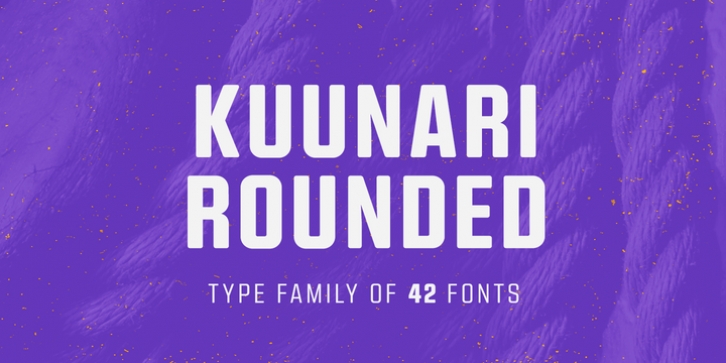
Kuunari Rounded is (You quessed it!) the rounded version of Kuunari. Kuunari Rounded is structured square sans type family of 42 fonts. It has three widths and 7 weights in both upright and italic versions. The base form is a round cornered rectangle and this form constructs the glyphs throughout the fonts.
Kuunari Rounded is a straightforward sans serif. It doesn't make any fuzz about itself, it just does the job proudly and with confidence. It is very versatile; it can be used for titles and logos to make a statement or more delicately for body text and lead paragraphs. All in all you can achieve diverse and rich typography with the Kuunari type family.